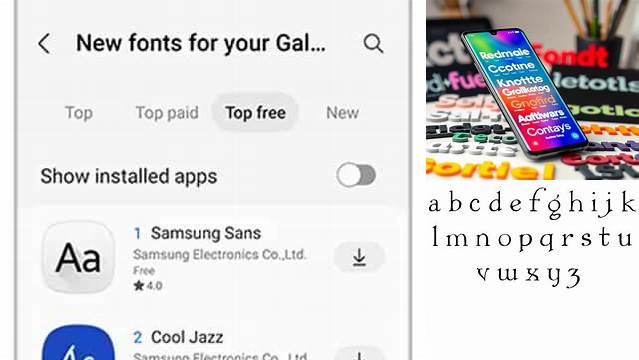
Awesome Fonts For Your Samsung Galaxy: Upgrade Your Look!
Hey everyone! Are you tired of the same old font on your Samsung Galaxy? Do you want to spice things up and give your phone a fresh new look? Well, you've come to the right place! We're diving deep into the world of best fonts for Samsung Galaxy devices, helping you discover the perfect typography to express your personality. Choosing the right font isn't just about aesthetics; it can also significantly impact your user experience. A well-chosen font makes your phone easier on the eyes, improves readability, and even reflects your style. So, let's jump in and explore some fantastic font options that will transform your Samsung Galaxy into a true reflection of you.
H2: Finding the Best Fonts for Samsung Galaxy: A Comprehensive Guide
Alright guys, let's get down to brass tacks. Finding the best fonts for Samsung Galaxy can feel a bit like navigating a maze, but don't worry, I'm here to be your personal guide. This isn't just about picking fonts at random. We're going to consider factors like readability, style, and how well each font gels with the Samsung Galaxy interface. Remember, the goal is to find fonts that are not only visually appealing but also enhance your overall experience. We want your phone to be both pretty and easy to use, right? So, what makes a font “good”? Well, it needs to be readable in various lighting conditions, work well with different screen sizes, and, of course, look amazing! Many fonts are pre-loaded on your Samsung Galaxy, but the real fun starts when you explore the vast world of downloadable fonts. There are tons of options available, from elegant serif fonts to modern, playful sans-serifs. The key is to experiment and find what resonates with you. Check out the Samsung Galaxy's built-in font store; it's a great starting point. You'll find free and paid options, allowing you to test things out without breaking the bank. Don't be afraid to mix and match! Combine a sleek font for your main text with a bold, eye-catching font for headings. That personal touch is what makes your device truly yours. Keep in mind that font size and weight can also significantly affect readability. Choose sizes that are comfortable for your eyes and a weight that stands out without being too overwhelming. A good rule of thumb is to try out several options to see what works best for you. Readability should always be a priority. If you're struggling to read the text, it’s probably not the right font for you, no matter how cool it looks. With a little bit of exploration and patience, you’ll find fonts that will give your Samsung Galaxy a massive makeover.
H3: Exploring Samsung Galaxy's Built-in Font Options
Let’s begin by exploring the fonts already available on your Samsung Galaxy. These are often overlooked but are carefully curated to ensure compatibility and optimal performance. These default fonts often offer a balance between aesthetics and functionality. They're designed to look good while maintaining excellent readability on various screen sizes and in different lighting conditions. To access the default fonts, go to your phone's settings. Usually, it’s under the “Display” or “Font Size and Style” menu. You'll typically find a selection of pre-installed fonts, each with its own unique character and personality. Take the time to browse through each one and see how it looks on your device. Experiment with the font size and weight to see how it impacts your overall experience. Some pre-installed fonts may have different styles, like bold, italic, or condensed versions, which adds an extra level of customization. The beauty of these built-in fonts is that they’re guaranteed to work seamlessly with your Samsung Galaxy interface. You don’t need to worry about compatibility issues or font rendering problems. It's a convenient and straightforward way to refresh your phone’s appearance without downloading anything. These native fonts are also optimized to use less battery power. So, by sticking with them, you are likely to get better battery life. Even if you’re tempted to download tons of new fonts, give the built-in options a fair chance. You might be surprised to discover a font that perfectly suits your needs and style. They're already there, waiting for you to explore and appreciate them.
H2: Top Font Recommendations for Samsung Galaxy: Style and Functionality
Okay, let's get into some recommendations. When it comes to the best fonts for Samsung Galaxy, the choice really comes down to personal preference. I've curated a list of some top-notch options that balance style and functionality. First up, we have Roboto. It's a classic, a favorite among Android users, and for good reason. Roboto is a clean, modern sans-serif font that’s highly readable at any size. It’s also incredibly versatile, which makes it suitable for both everyday use and more specific applications. Then there's Open Sans. Another super popular option, Open Sans is known for its friendly and approachable feel. It’s a great choice if you want a font that's easy on the eyes and offers a touch of elegance. It is also incredibly legible, making it perfect for long reading sessions on your phone. For something a bit more stylish, try Montserrat. It's a geometric sans-serif font that feels both modern and sophisticated. Montserrat is excellent for adding personality to your device. Just make sure you choose a font size that is suitable for your eyes. Now, if you like a bit more personality, consider a font like Raleway. Raleway offers a refined, elegant look that can make your Samsung Galaxy stand out. It’s a great option for adding a touch of class to your device. But be mindful when choosing Raleway, especially if you are setting it up as a very small font size. Finally, don't forget about the power of a good serif font, like Merriweather or Playfair Display. They are perfect if you like a more traditional look with a touch of sophistication. These fonts often feel more elegant, which is perfect if you like a more classic vibe. The key here is to try them out and see what feels right. You might even want to have a rotation!
H3: Fonts That Enhance Readability on Your Samsung Galaxy
Readability is key. That's why I recommend you consider these fonts. When choosing best fonts for Samsung Galaxy, it’s critical to prioritize readability. The best font is useless if it's a strain on your eyes. Clean and simple sans-serif fonts often excel in readability due to their clear letterforms and lack of ornate details. Roboto is a prime example of this, providing a straightforward and highly legible experience. Similarly, Open Sans offers a friendly and open feel, making it easy to read for extended periods. If you're looking for something slightly more unique but still readable, consider Lato or Nunito. These fonts maintain a good balance between style and legibility. The most important thing is to make sure you pick a font with clear characters, distinguishable letterforms, and sufficient spacing. Avoid fonts that are too condensed, overly stylized, or have intricate designs, as they can make it difficult to distinguish individual letters, especially at smaller sizes. Also, consider the font's weight. A regular or slightly bold weight typically offers the best readability. Too thin, and the letters might fade. Too thick, and they can bleed together. You also can try out different font sizes on your Samsung Galaxy. A slightly larger font size can significantly improve readability, especially if you find yourself squinting at the screen. So, when trying out the fonts, experiment with different sizes. Finally, don't forget about the background. Invert colors can sometimes make text easier to read. So, think about if the font works in light and dark modes on your Samsung Galaxy.